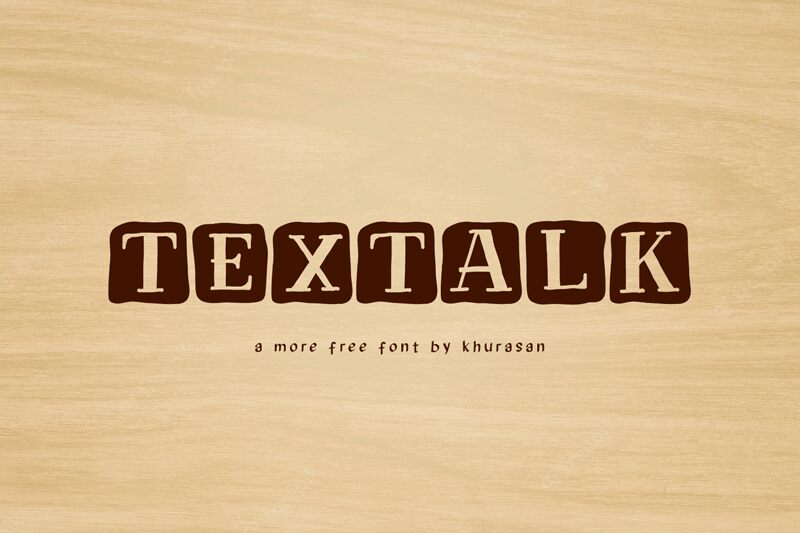
Textalk
Textalk, designed by Khurasan, is a captivating semi-bold display font with a modern and adaptable style.
Its decorative and negative elements make it an ideal choice for creating eye-catching posters that demand attention. With its unique design, Textalk is also perfect for designing memorable logos that leave a lasting impression. Additionally, this versatile font can be used in magazines to add a touch of creativity and uniqueness to the layout. Whether it's cover books or banners, Textalk adds a cool and contemporary vibe that enhances any project.